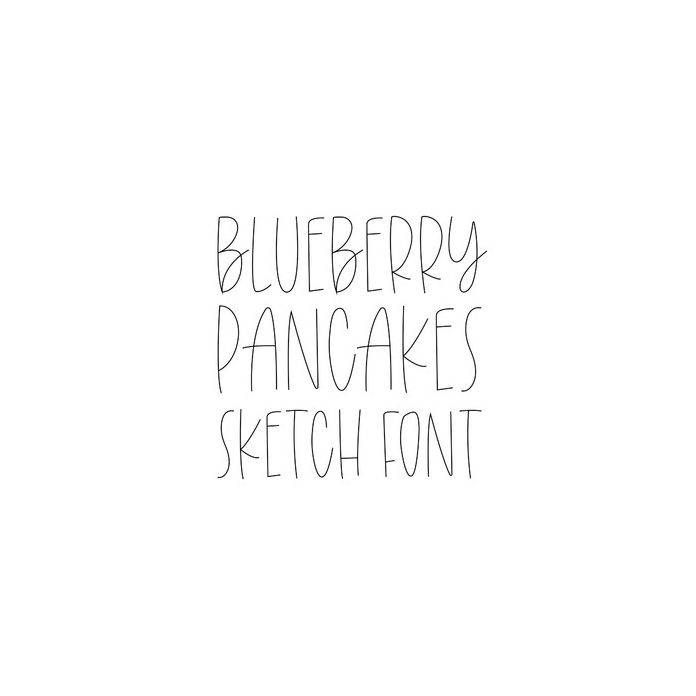
Blueberry Pancakes Sketch Font
Blueberry Pancakes Sketch is a casual handwriting sketch font. This font matches our font "Blueberry Pancakes (#376649)". Includes intl characters!